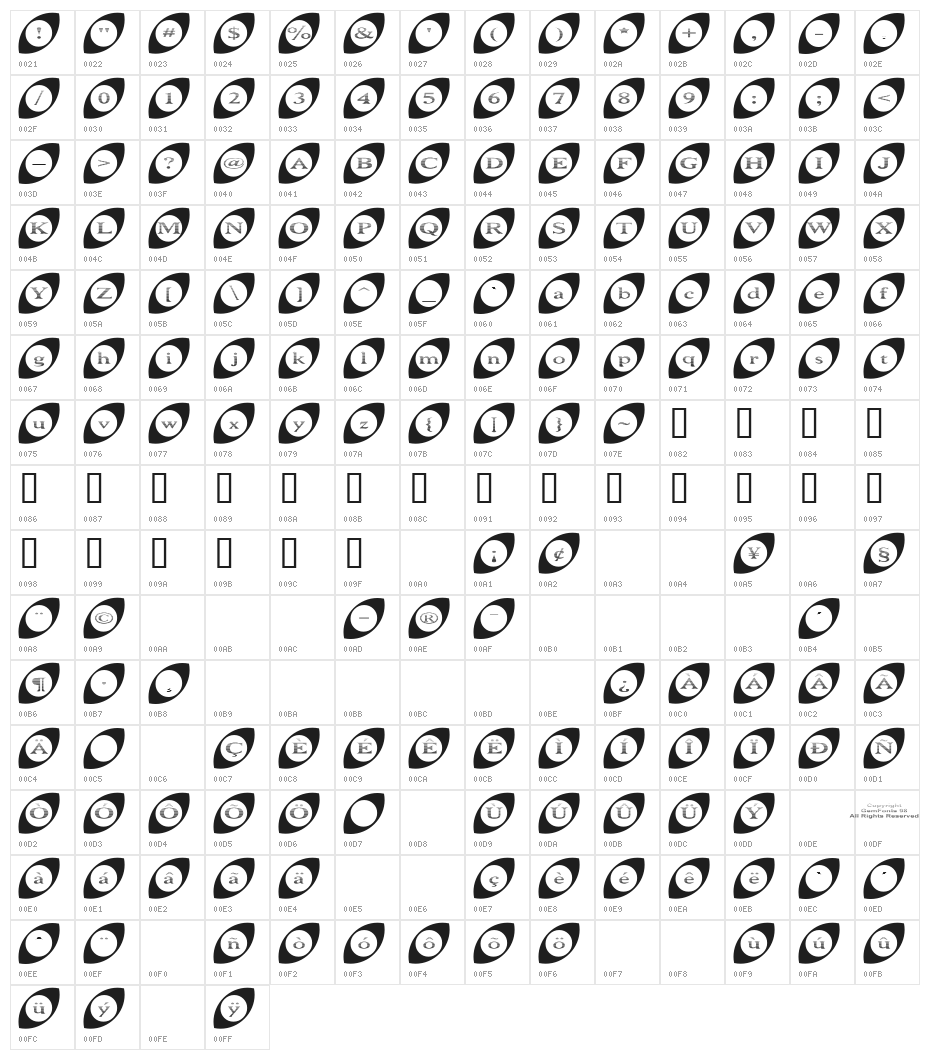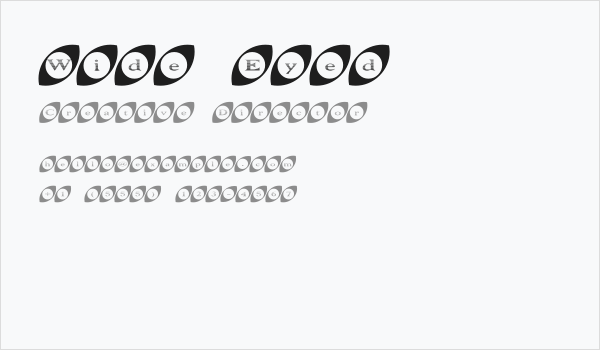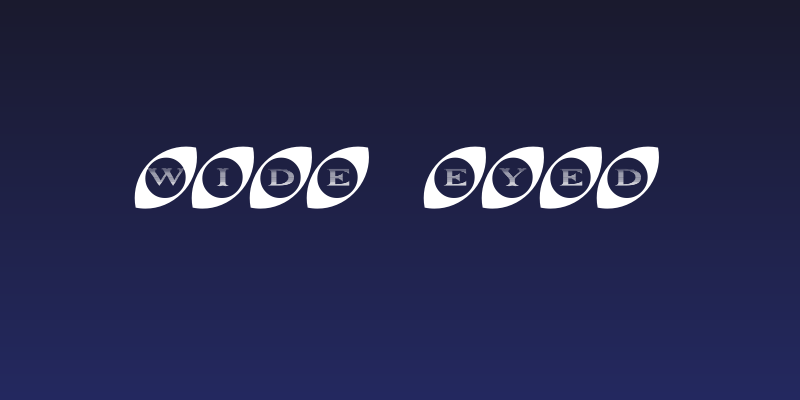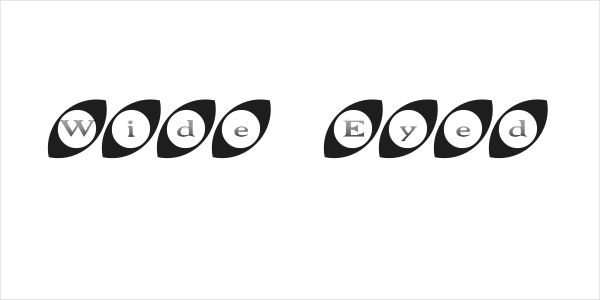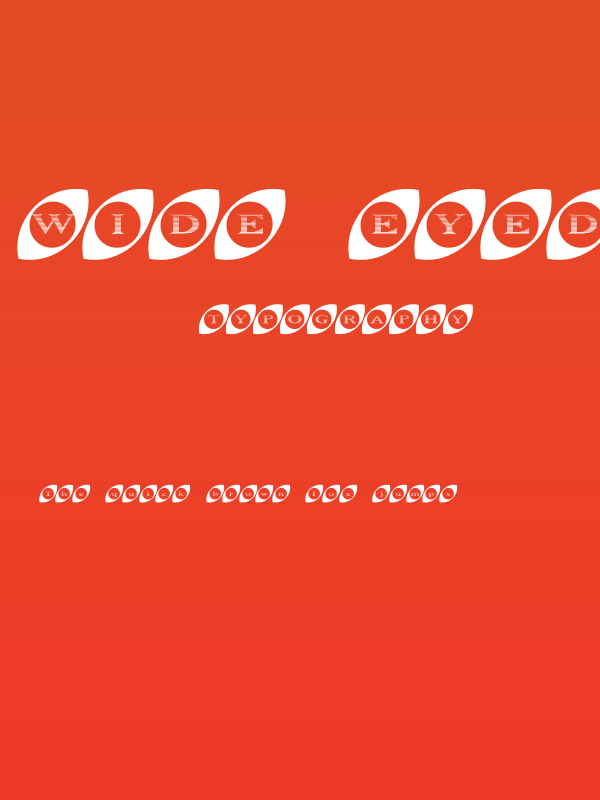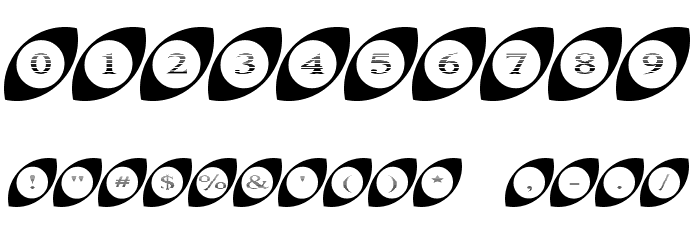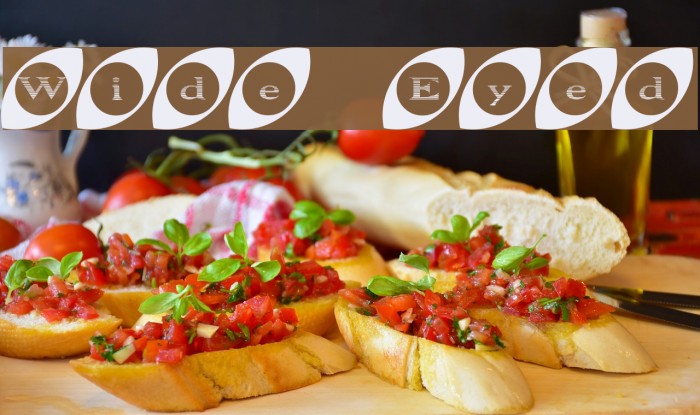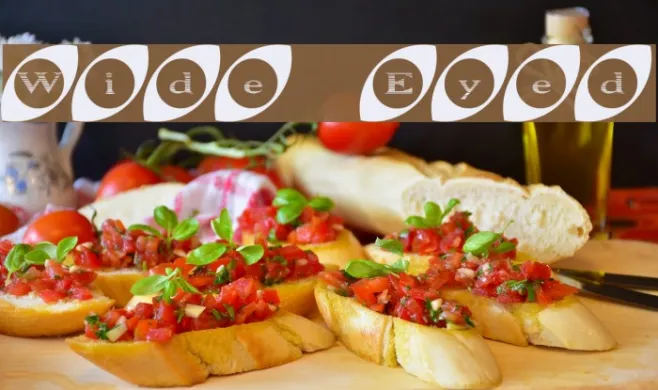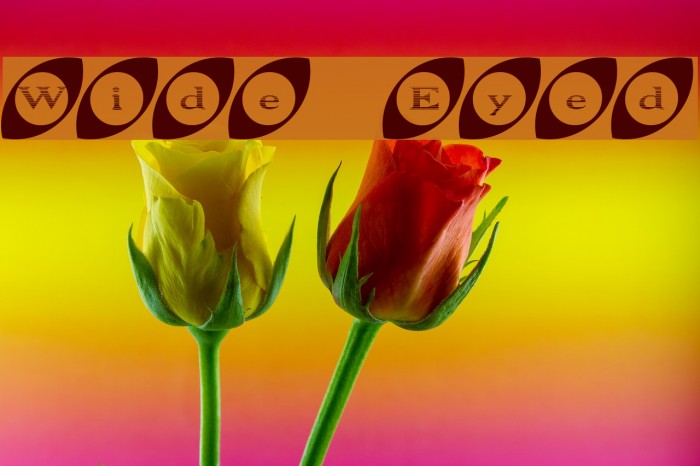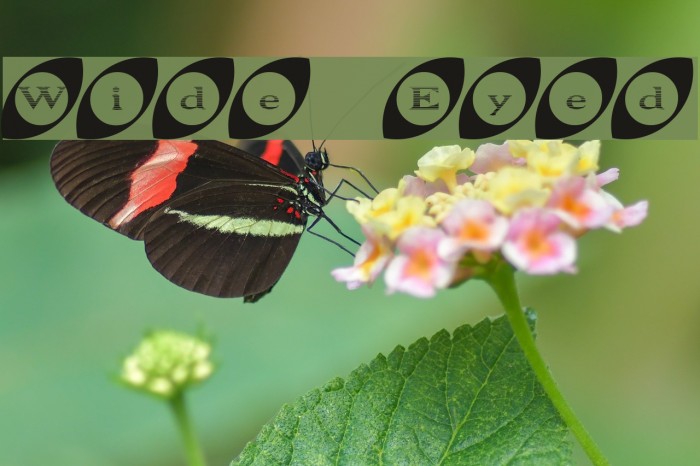
Wide Eyed Font
Wide Eyed Description
This unique and playful font features characters enclosed within eye-shaped ovals, creating a whimsical and engaging visual effect. The letters are centered within the ovals, providing a sense of balance and harmony. The font maintains a consistent style across uppercase, lowercase, numbers, and special characters, making it versatile for various design needs. The boldness of the characters ensures readability, while the distinctive shape adds a decorative touch. This font is ideal for projects that require a fun and eye-catching element, such as children's books, playful branding, or creative posters.
| Proposed Projects | Children's books, playful branding, creative posters, eye-catching advertisements. |